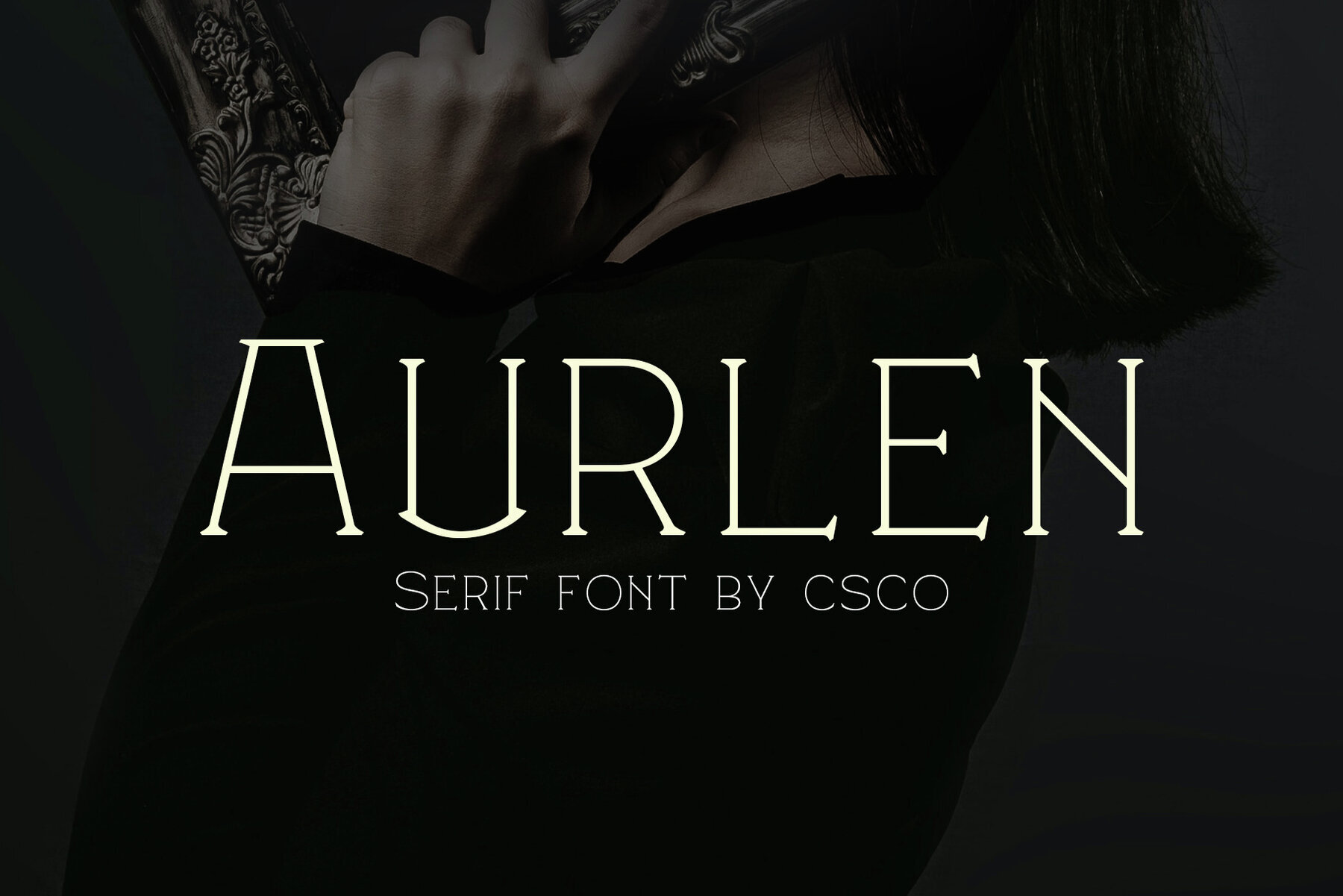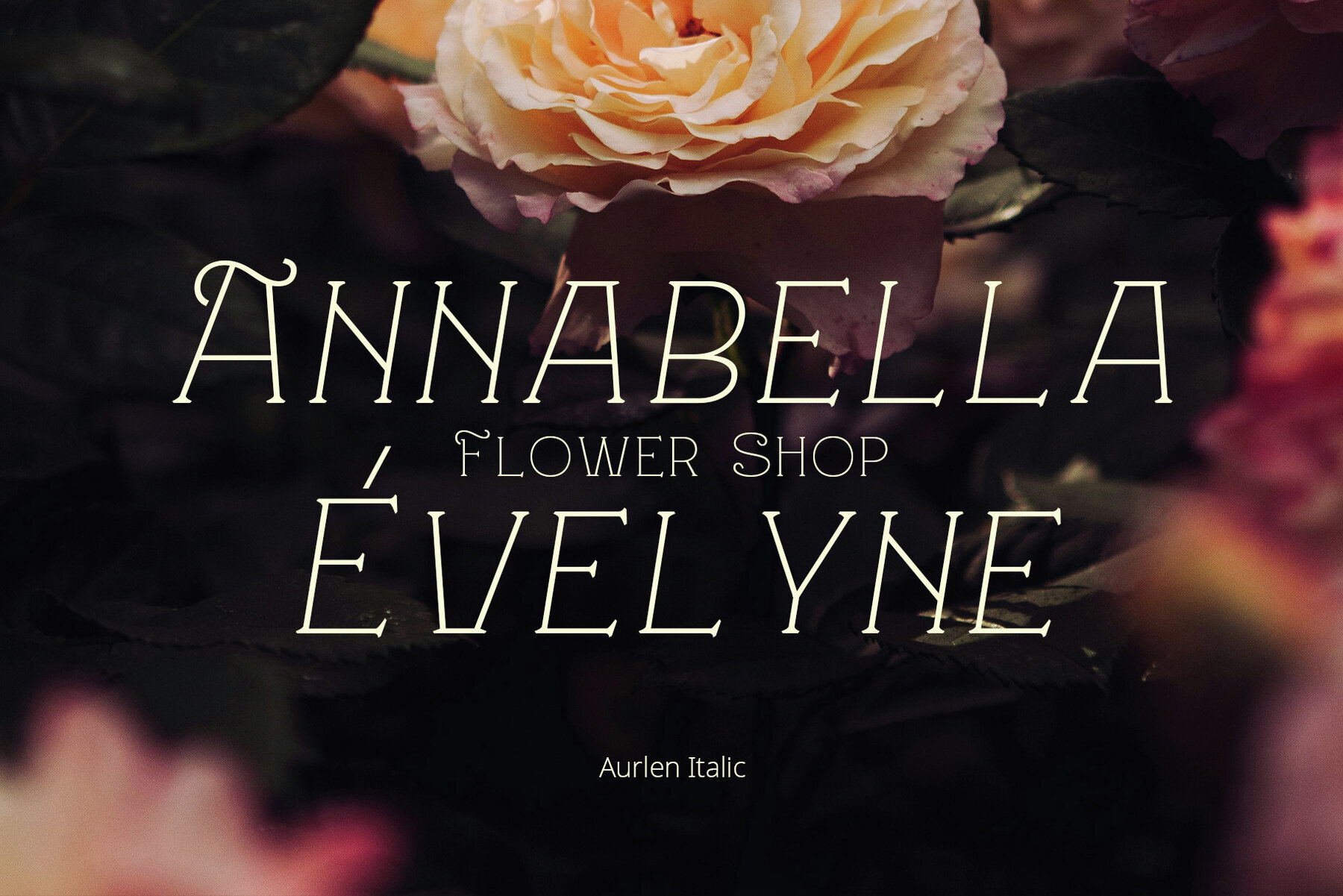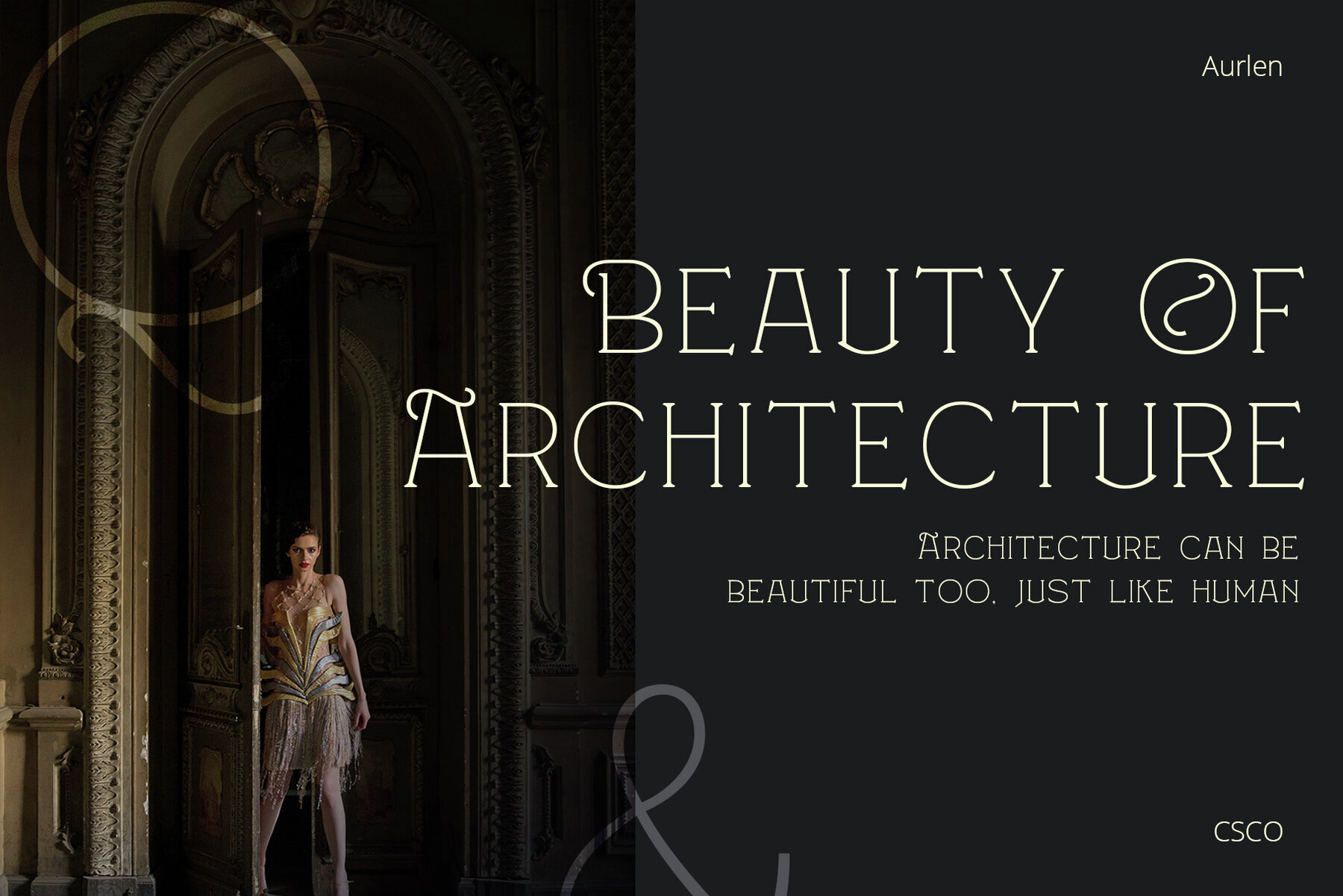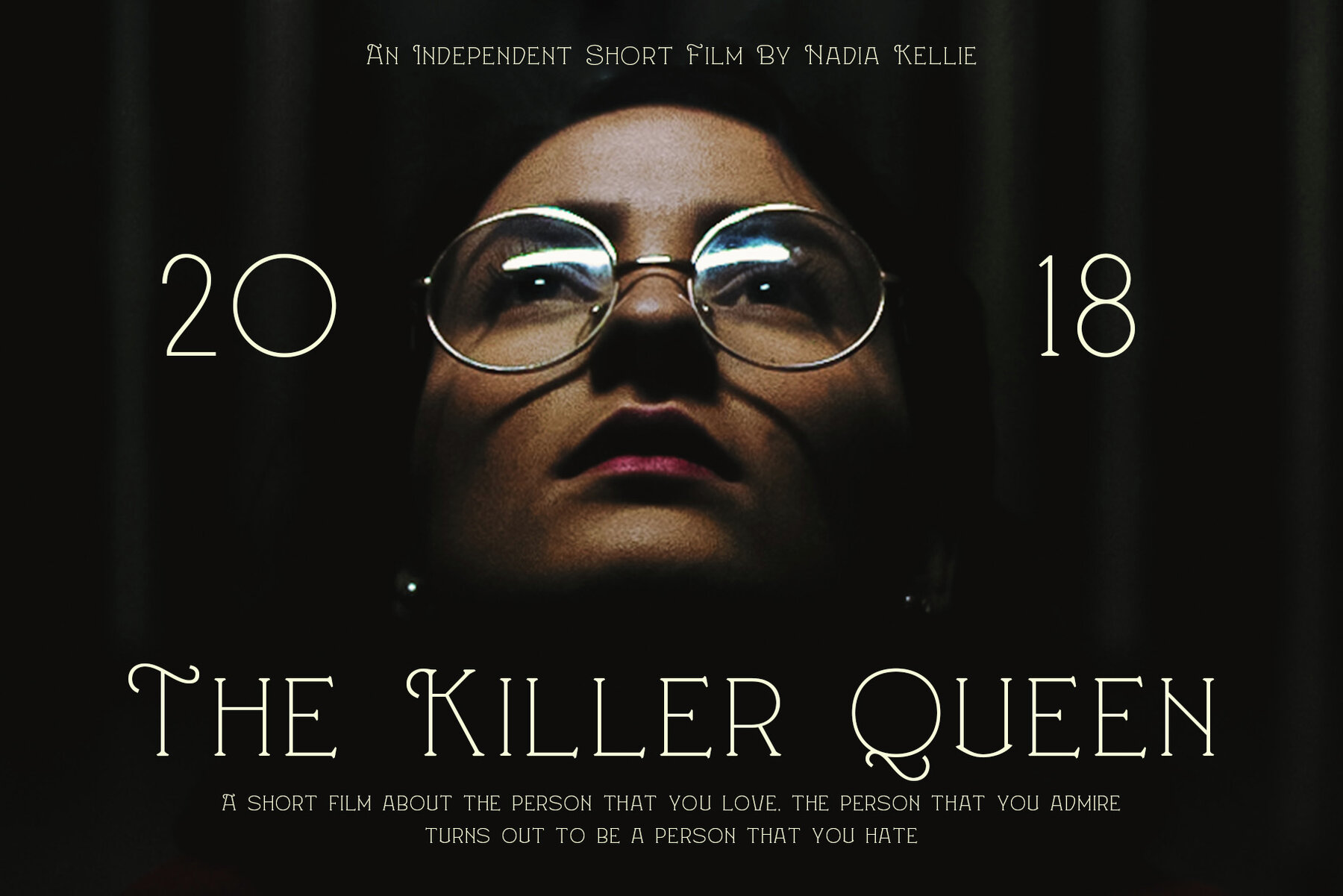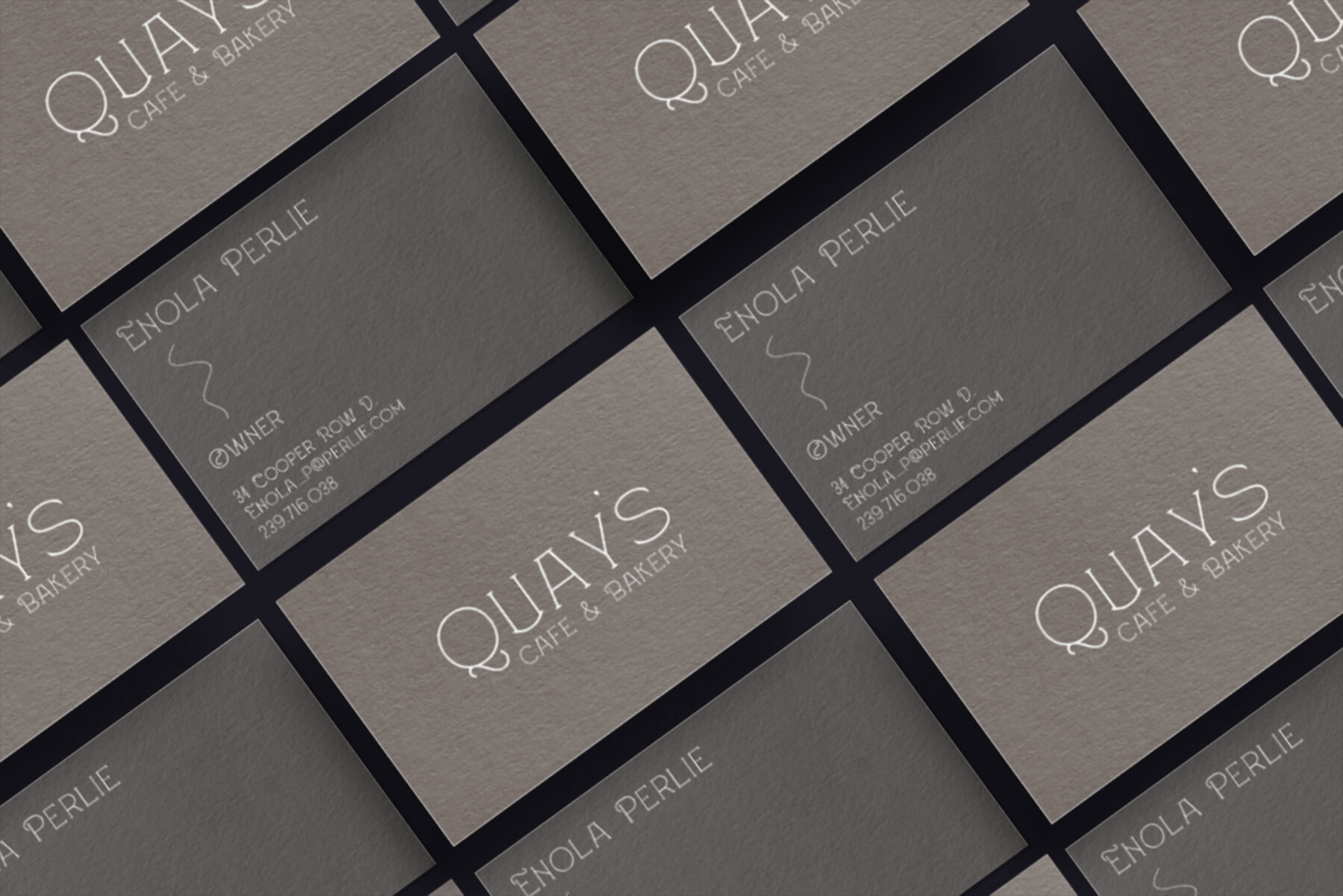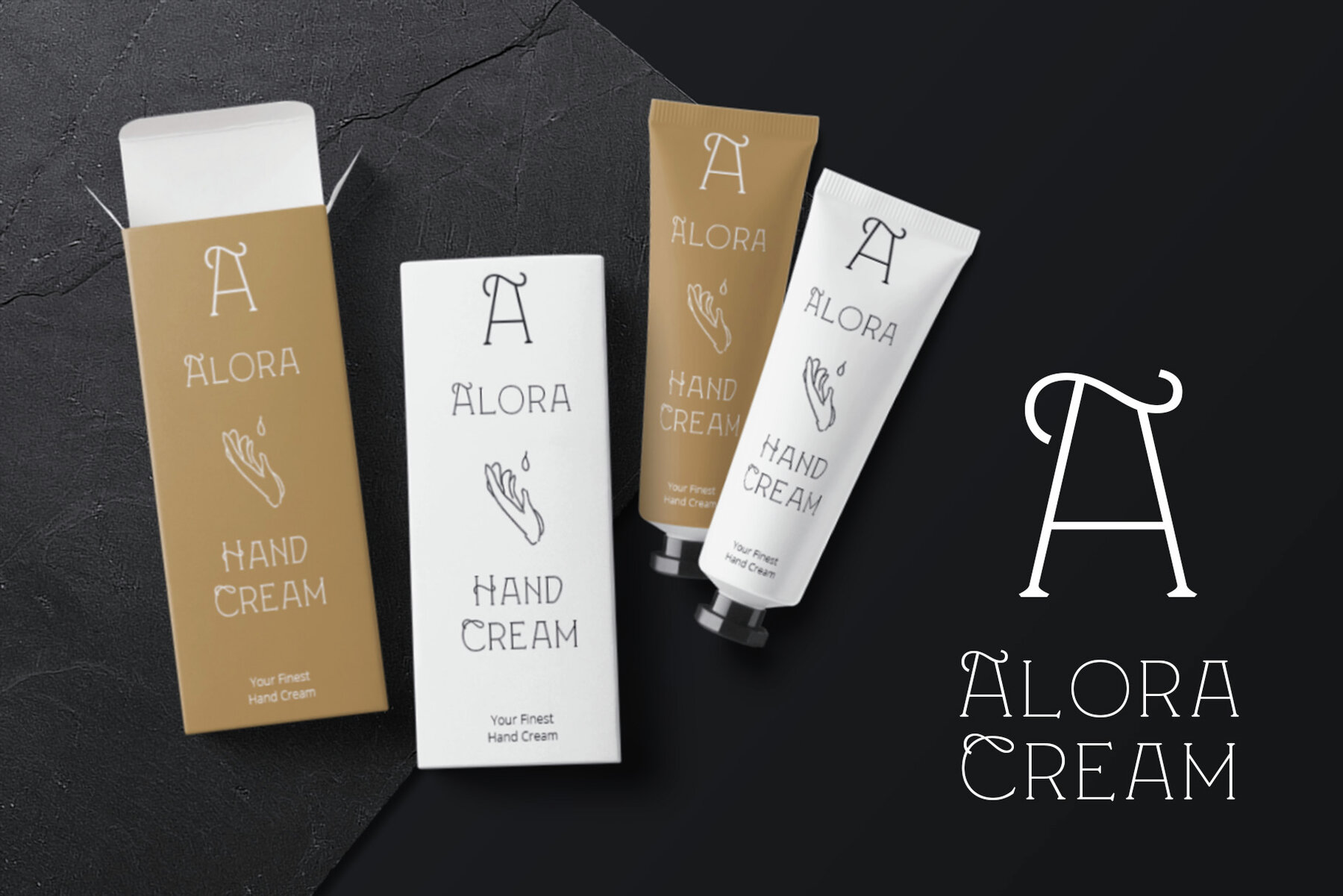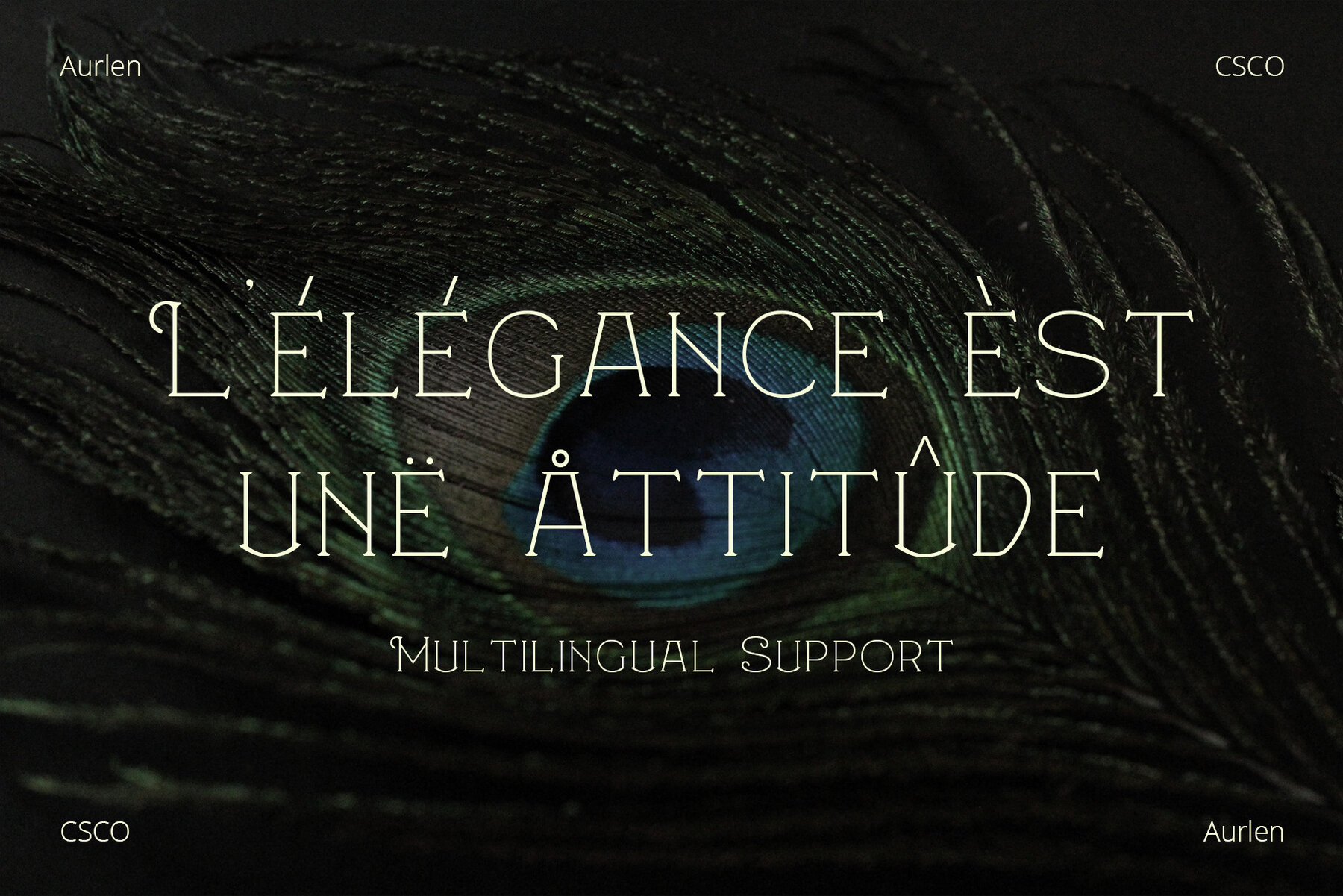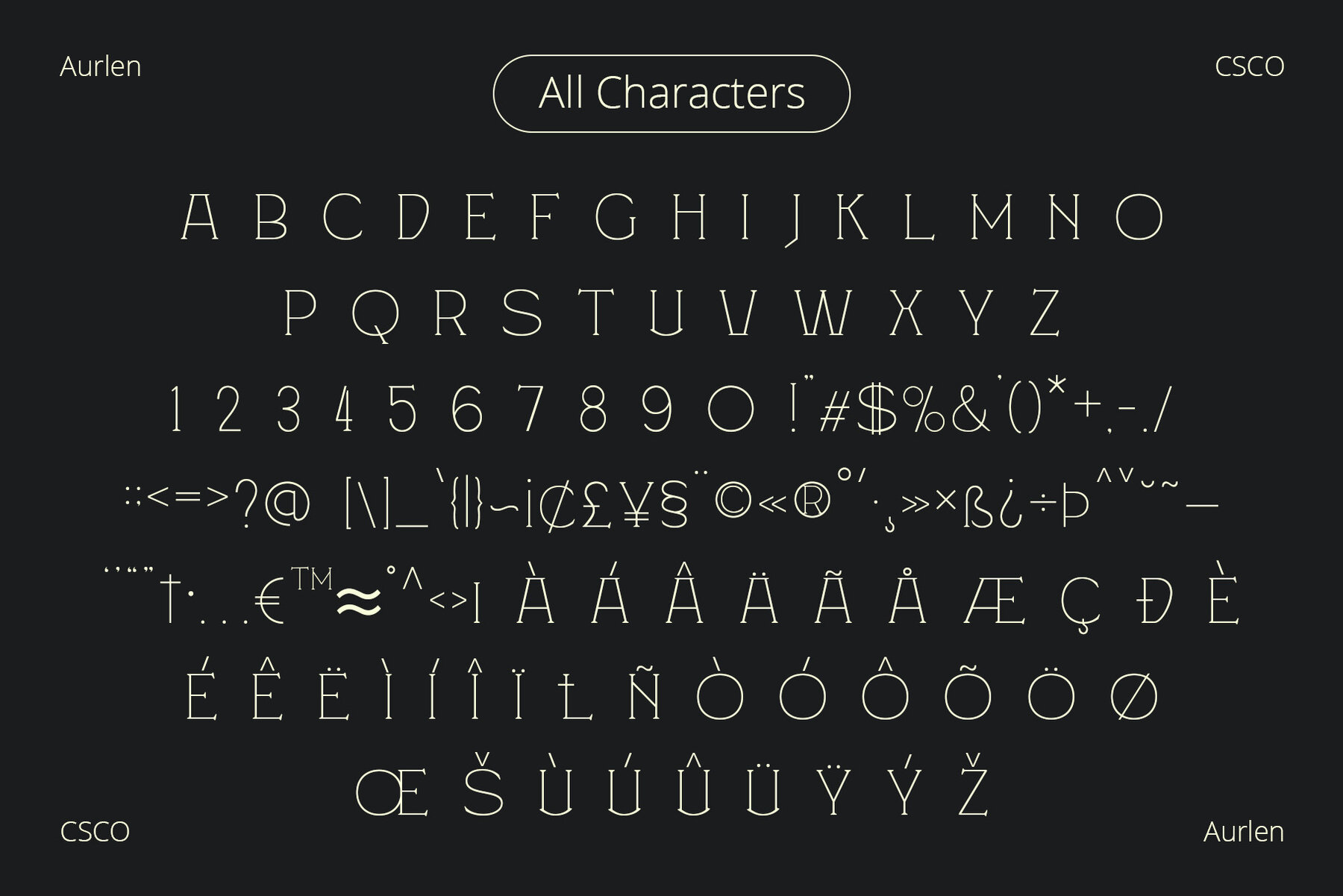
Aurlen Font
Aurlen is a delicate serif font crafted for luxurious and grand themes. Its minimalistic charm brings sophistication to every project, ensuring a timeless appeal. Aurlen's thin serifs exude elegance and refinement, ideal for upscale projects looking for a classic touch. The understated elegance of Aurlen enhances luxury branding, invitations, and editorial design with an effortless opulence. Aurlen adapts seamlessly across diverse design needs, shining in both digital and print media while maintaining a touch of luxury. The font captivates designers and audiences alike with its simplicity and elegance, making it a preferred choice for a lavish visual experience. Aurlen's thin, elegant serifs transcend trends, maintaining a refined allure. Its minimalistic approach exudes an enduring charm for grand and luxurious design themes. This typeface can be used without any specialized software. If you have any inquiries or need assistance, feel free to contact us. We appreciate your support in enhancing your creative projects!Aurlen: Elegant Serif Font for Luxurious Design
Stylish and Minimalistic
Luxury in Simplicity
Versatile Elegance
Aesthetic Excellence
Timeless and Refined